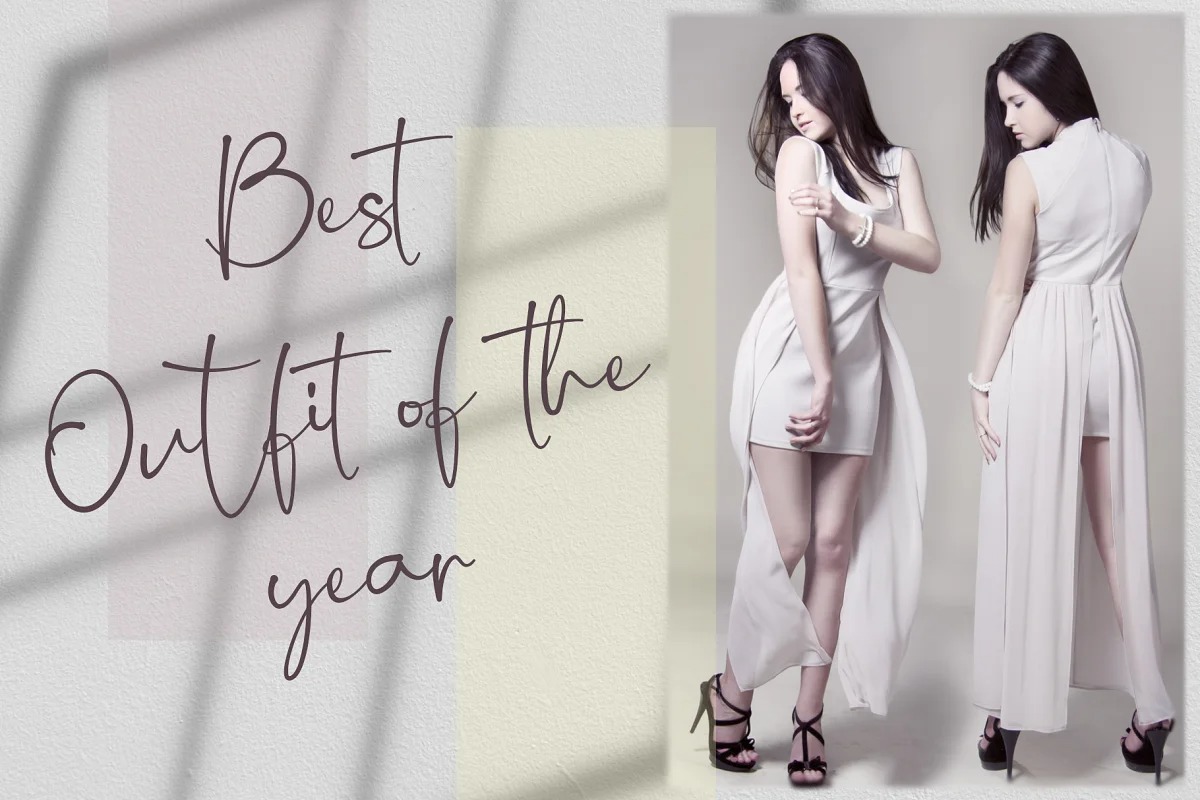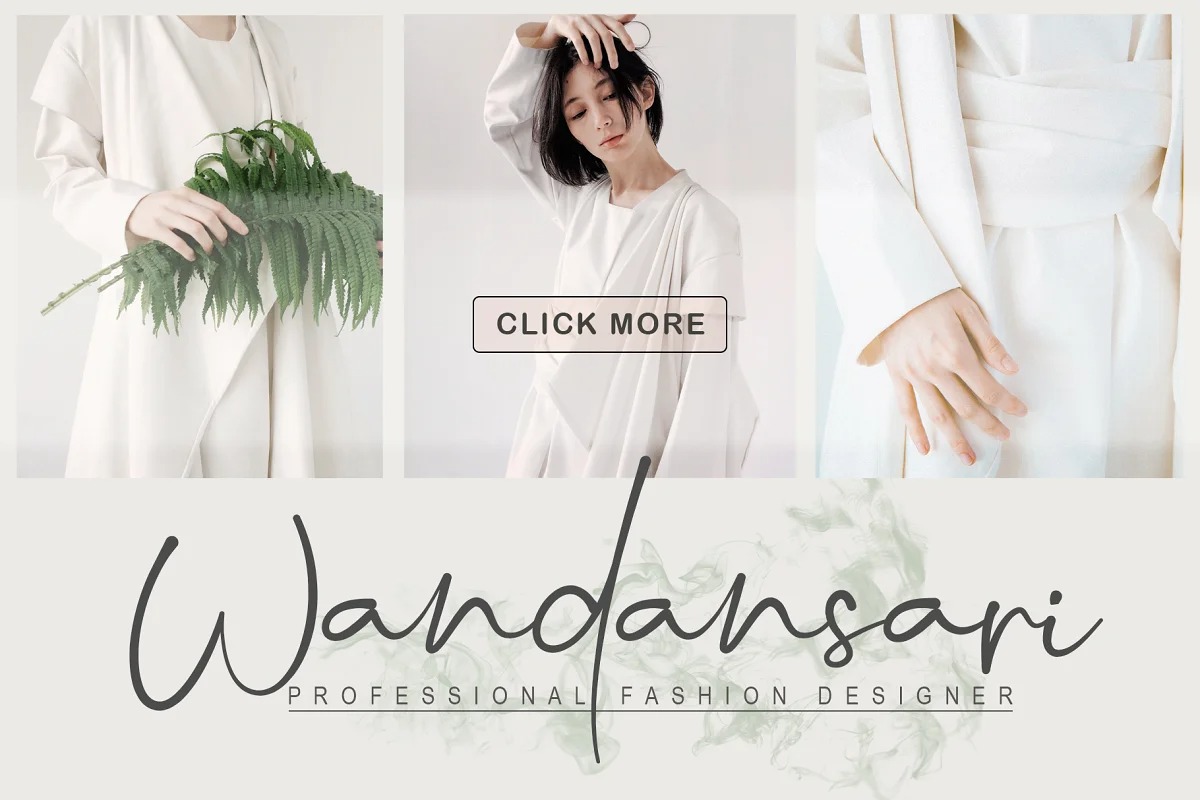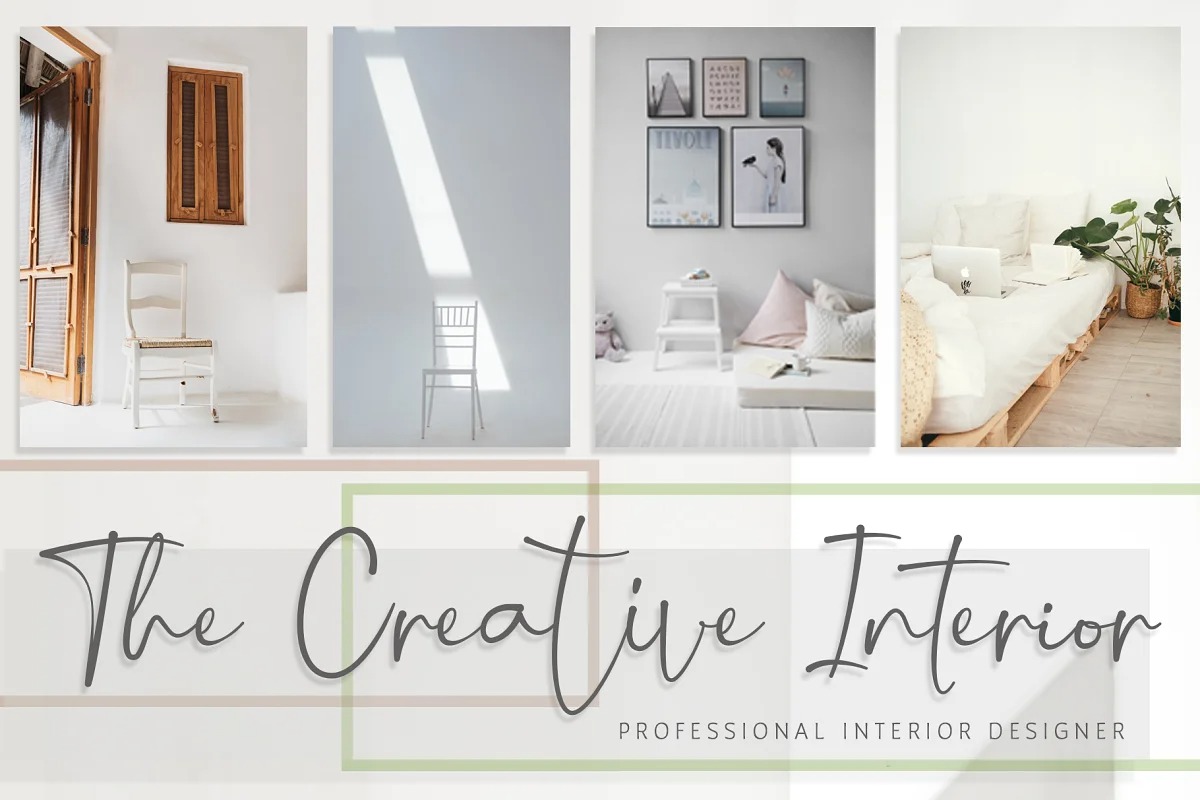
Hello Emillia Handwritten Font
It’s an wonderful signature typeface eye-catching, fashionable, and chill handwritten script font. Hello Emillia is very valuable to additional you handwritten and signature font.
Hello Emillia is perfect for many design needs such as merch, wedding invitation, T-shirts, titles, book covers, social media posts, websites, events, and many etc.